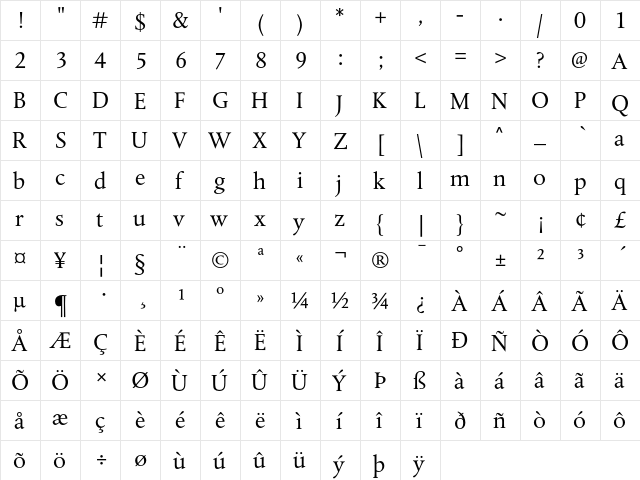
DTL Albertina T Regular
Design Context for DTL Albertina Typeface
DTL Albertina is a composed and adaptable typeface that performs quietly and consistently across a wide range of design contexts.
Pro Tip: Pair DTL Albertina with a font of contrasting weight or personality to build a more expressive typographic hierarchy.